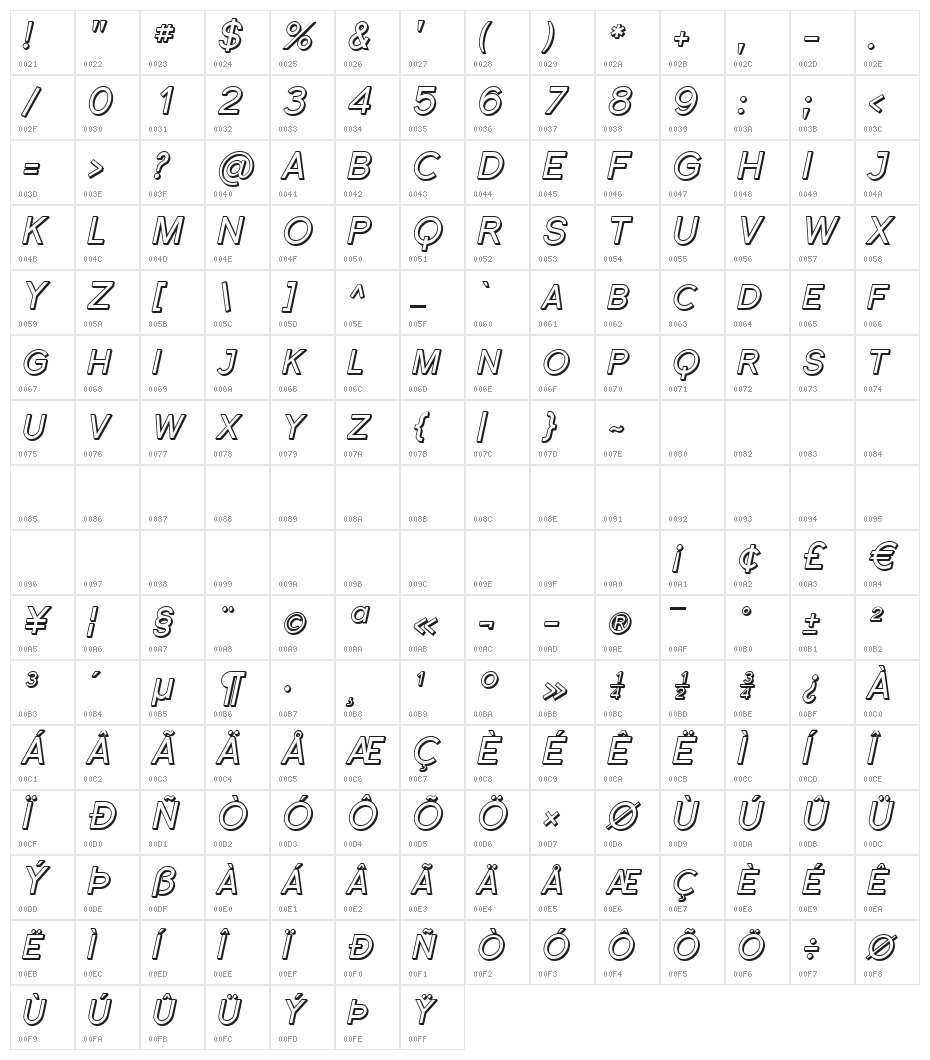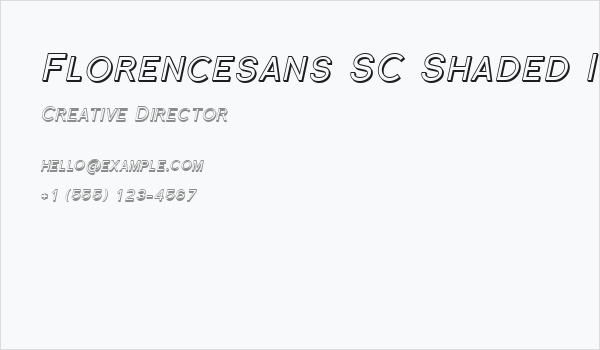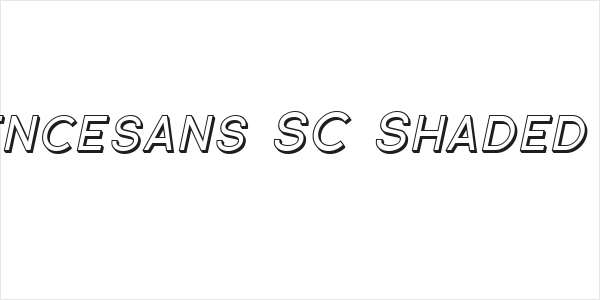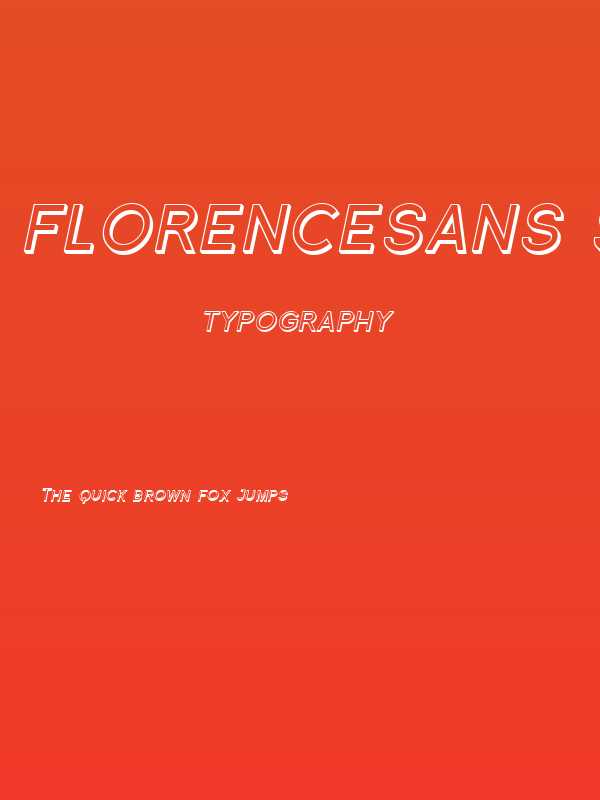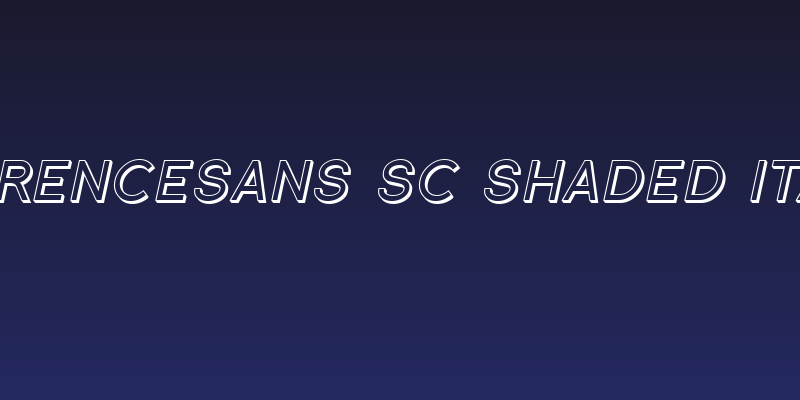
Florencesans SC Shaded Italic Font
Florencesans SC Shaded Italic Description
This font features a bold, italicized style with a unique shaded effect that gives it a three-dimensional appearance. The letters are sans-serif, providing a clean and modern look. The shading adds depth and interest, making it stand out for attention-grabbing designs. The characters are well-proportioned with consistent spacing, ensuring readability. The numbers and special characters maintain the same stylistic elements, offering a cohesive appearance across all text elements. This font is ideal for projects that require a distinctive and stylish touch.
| Proposed Projects | Ideal for headlines, posters, branding, and any design needing a striking, modern aesthetic. |